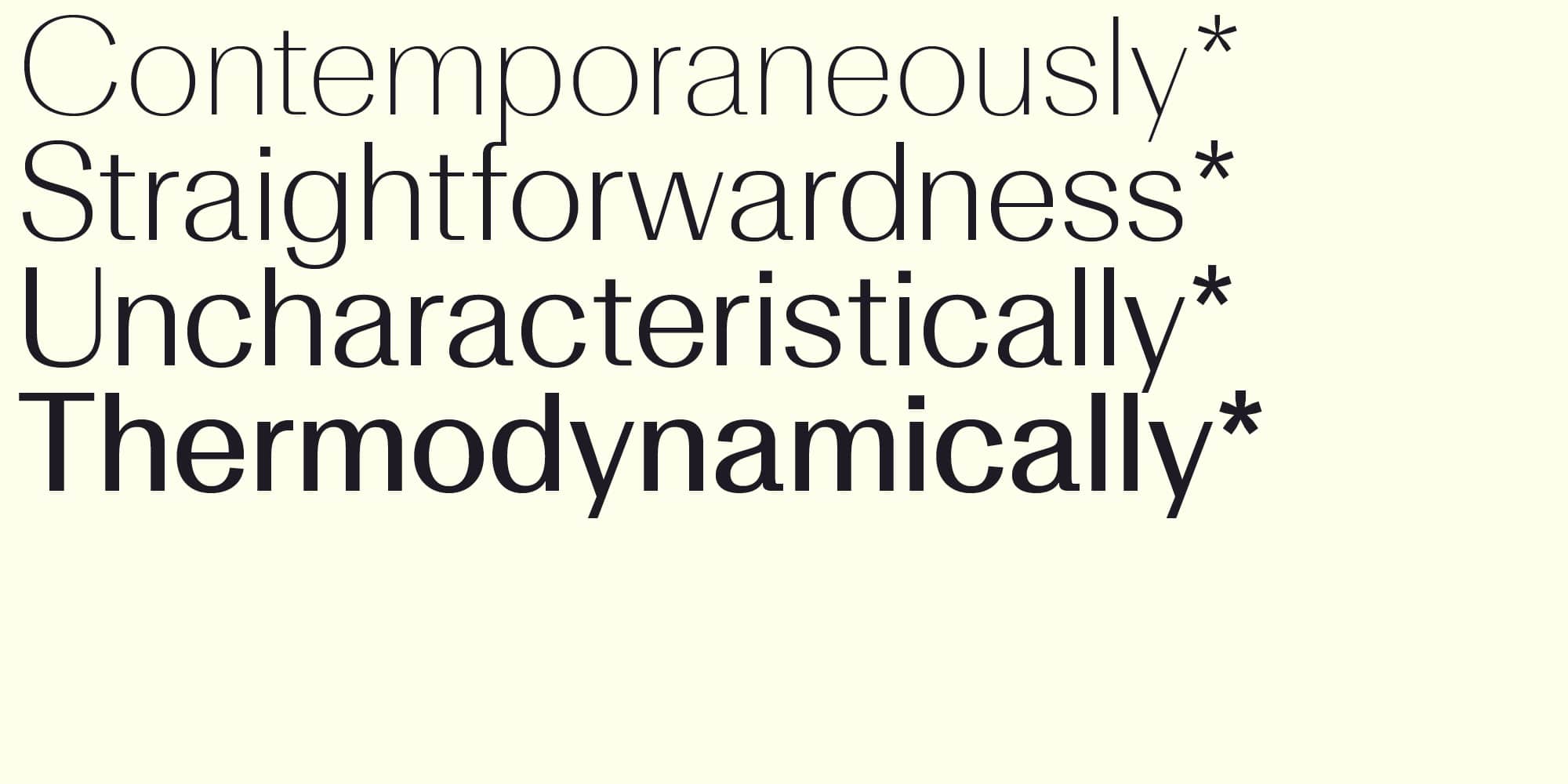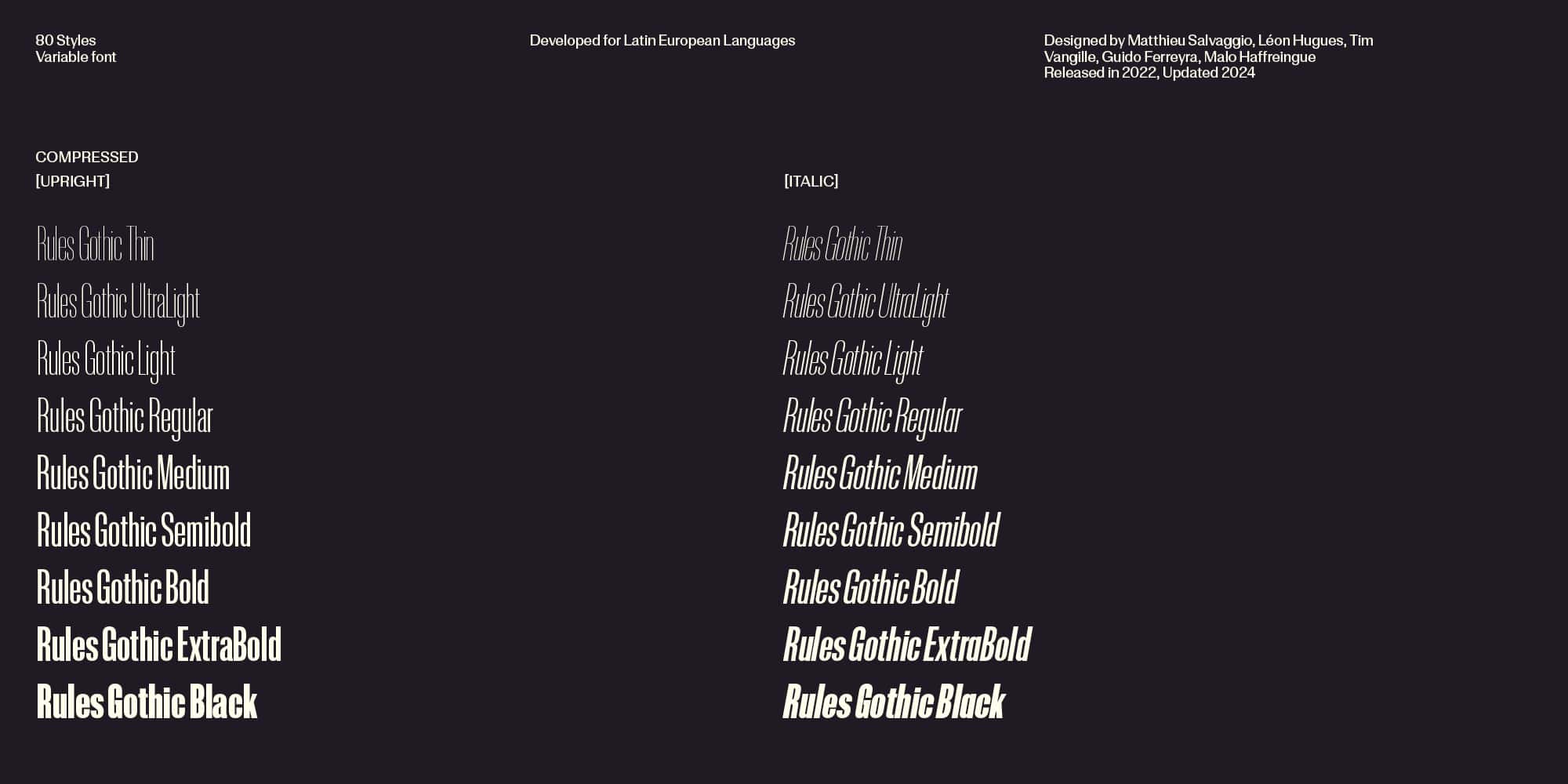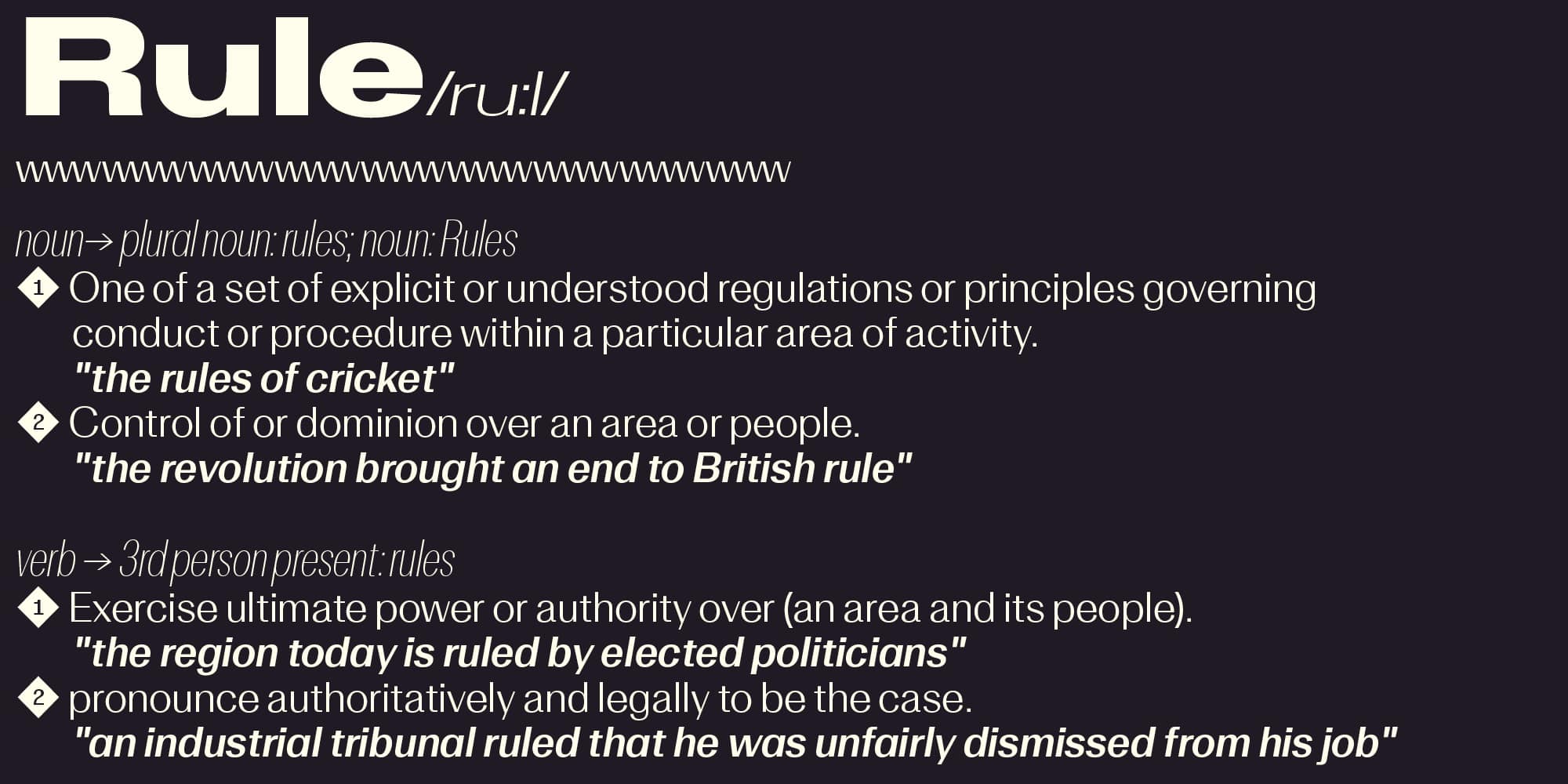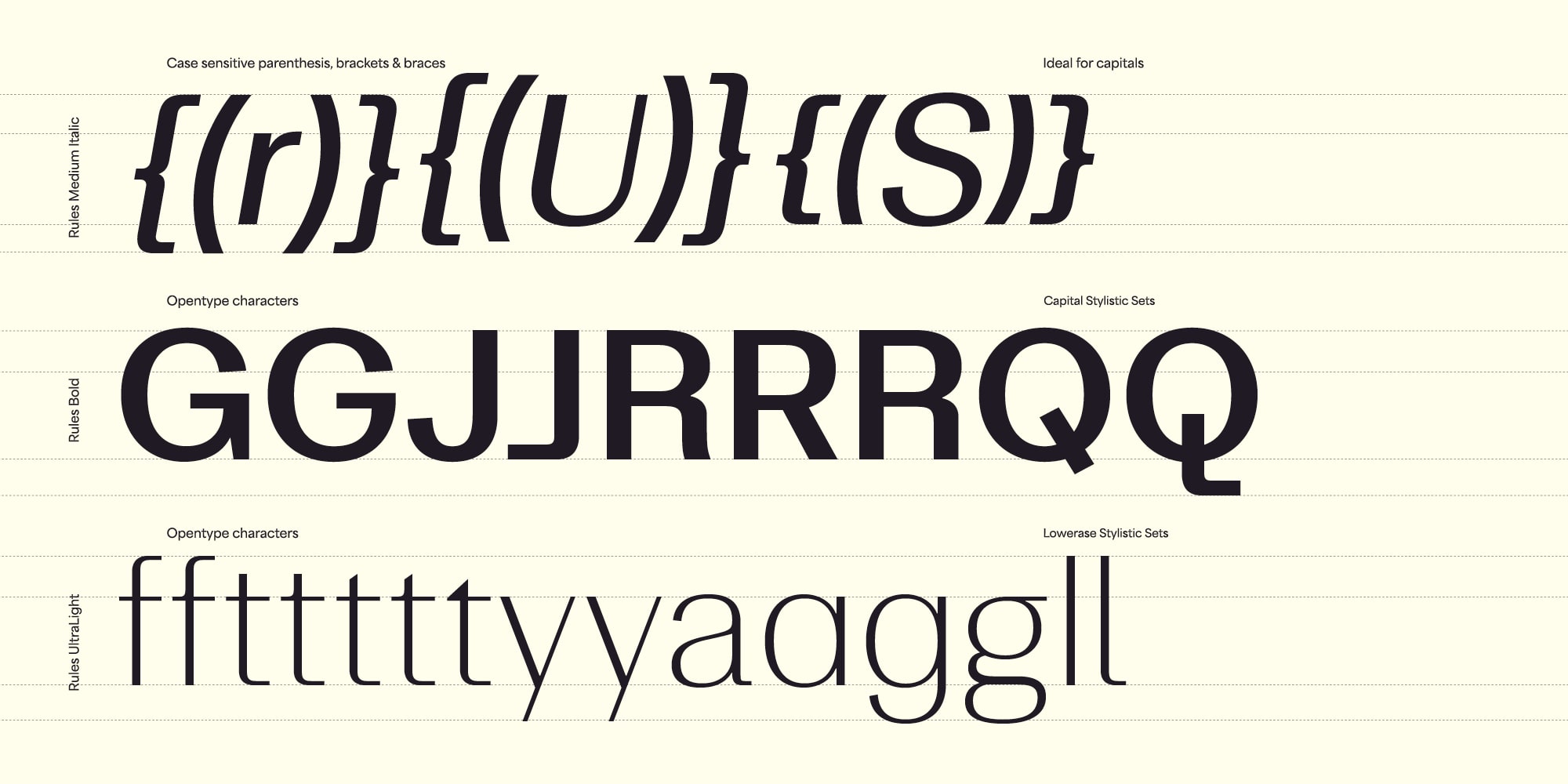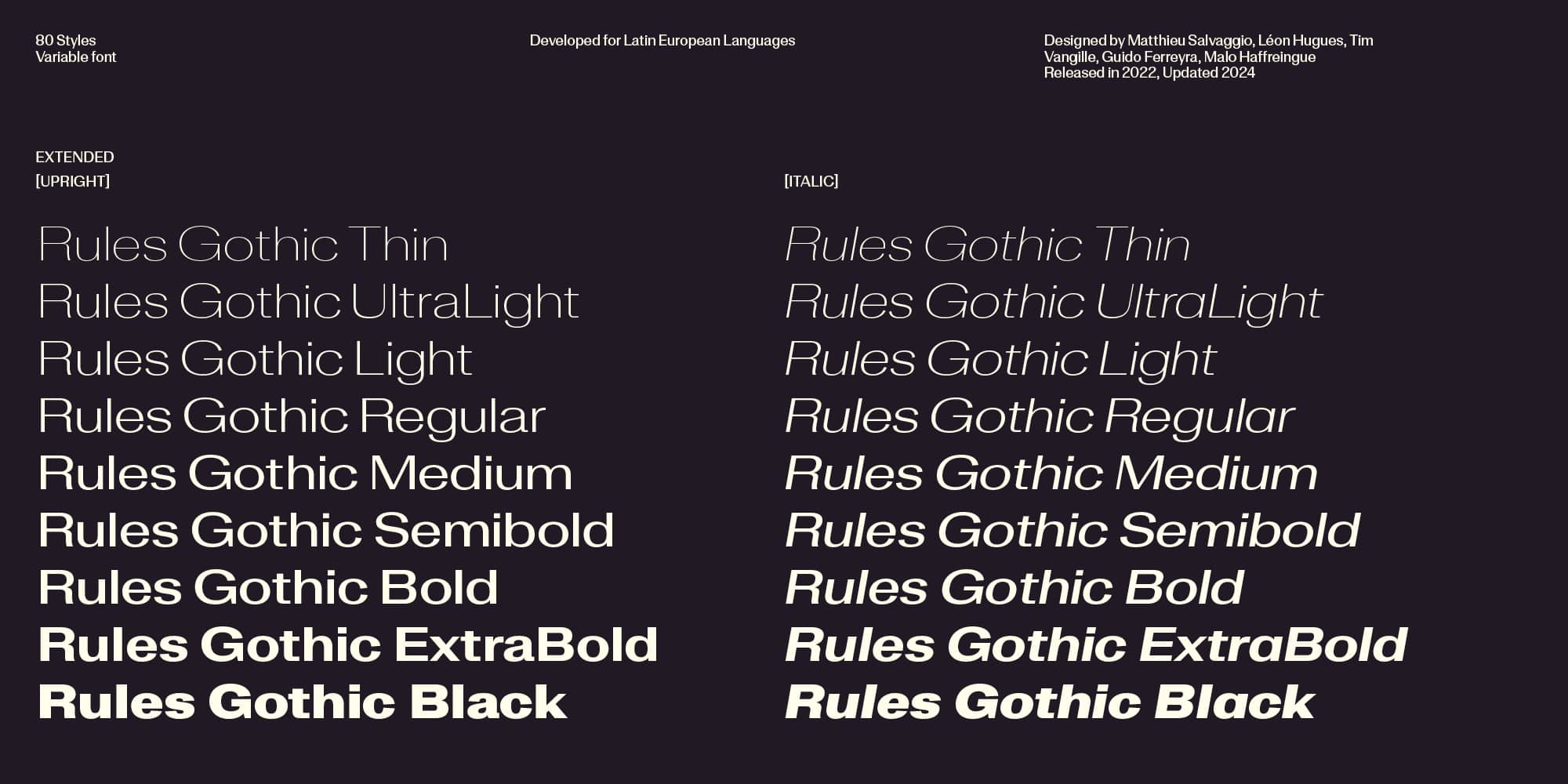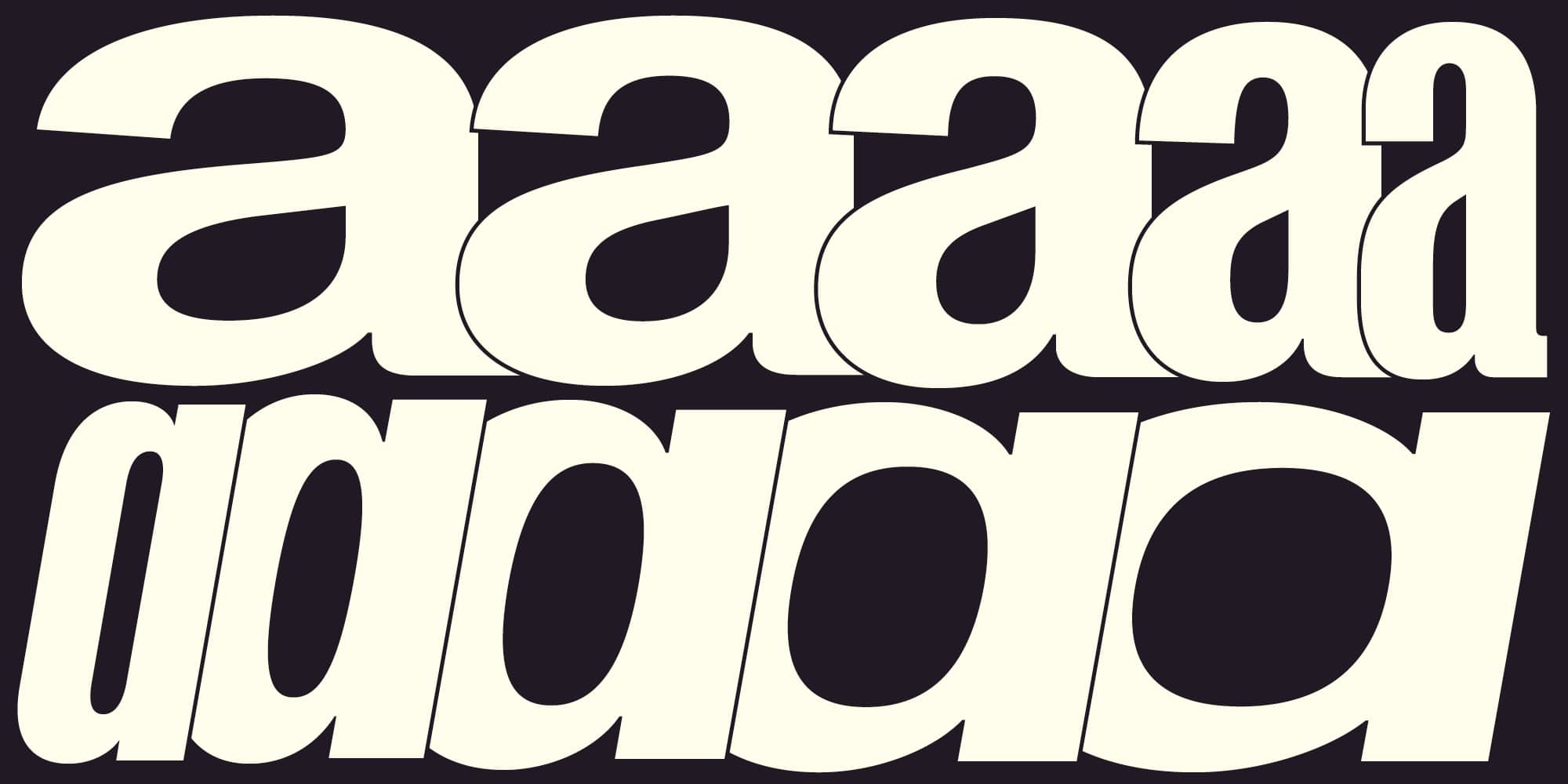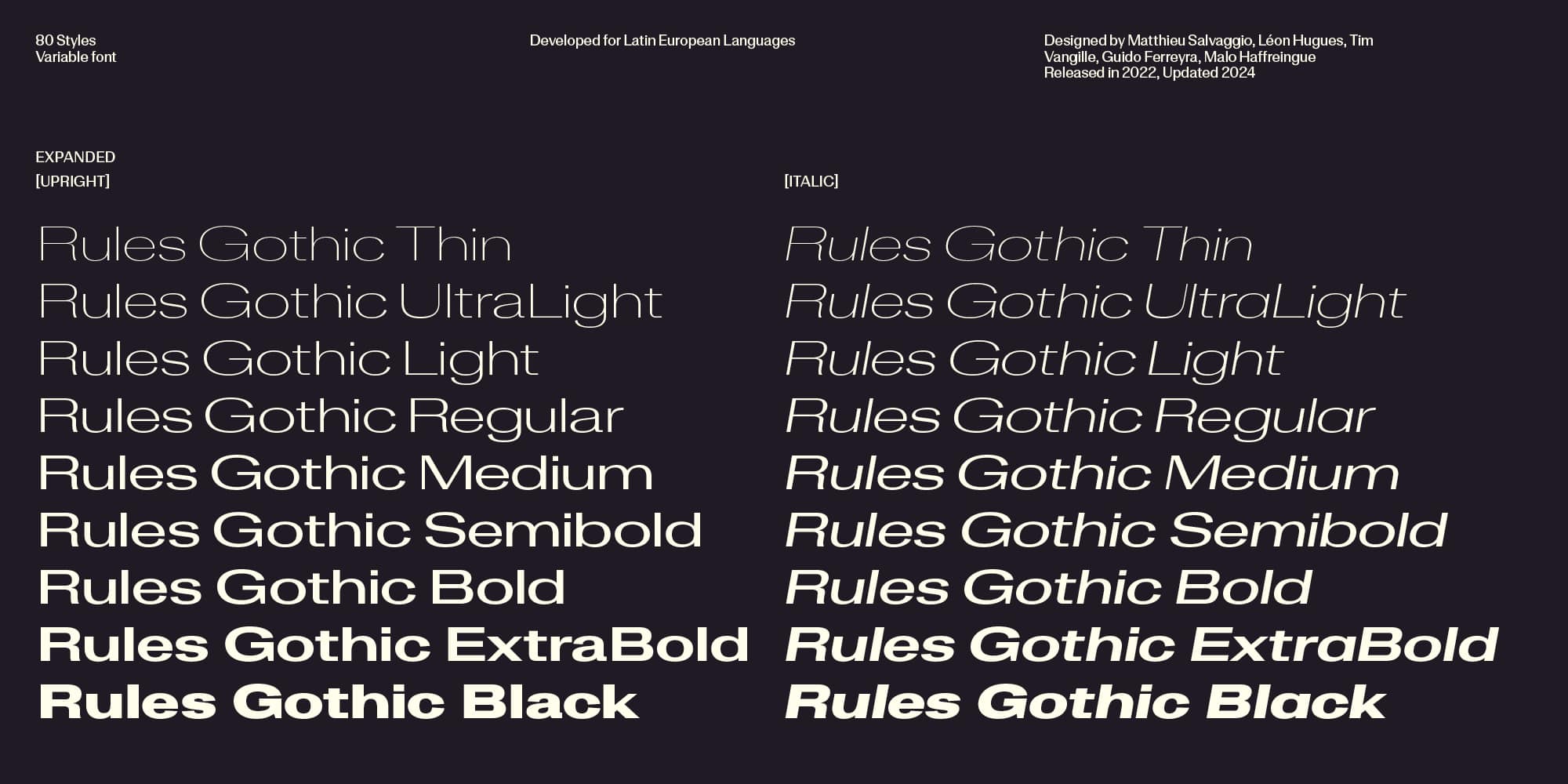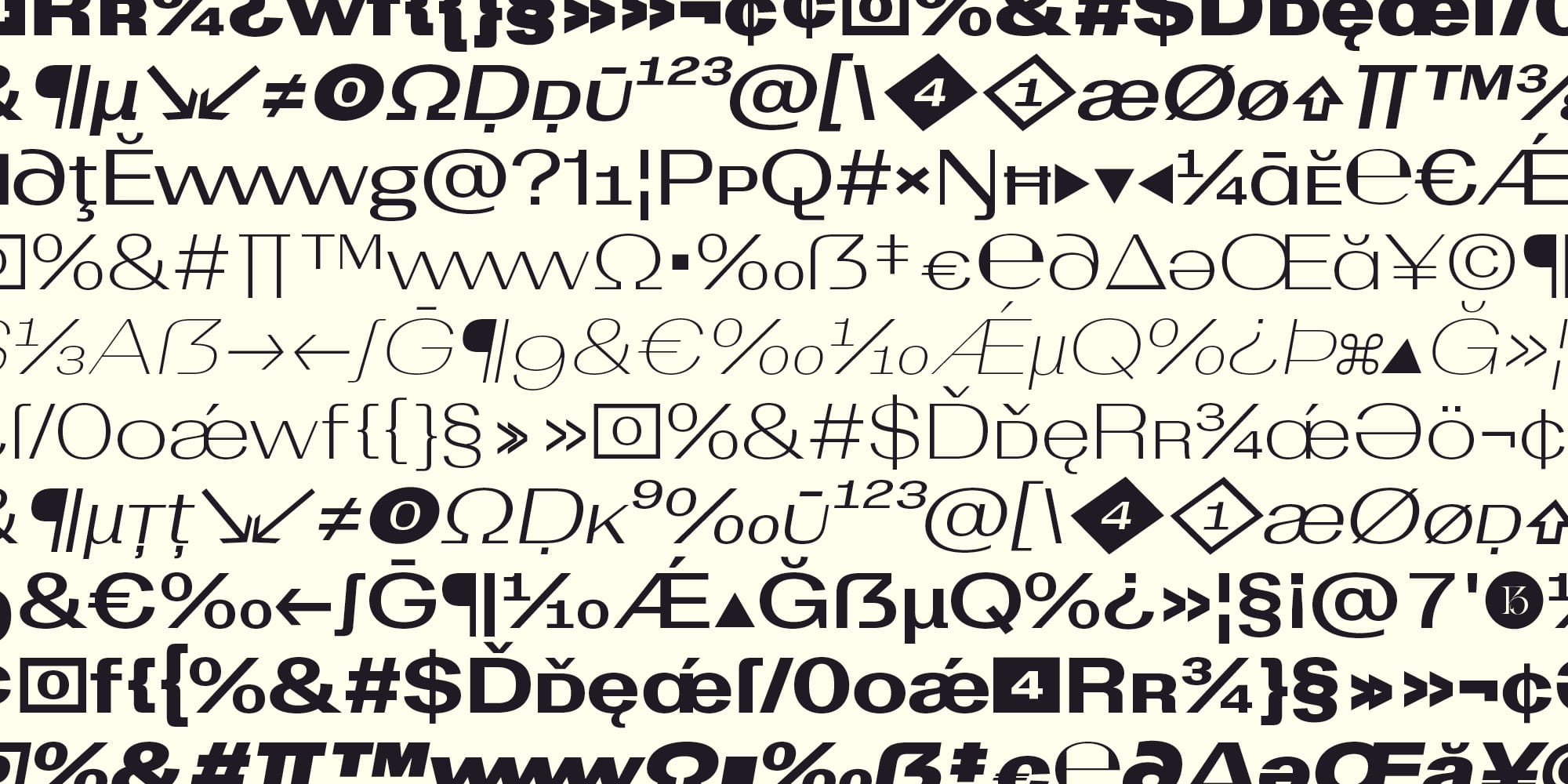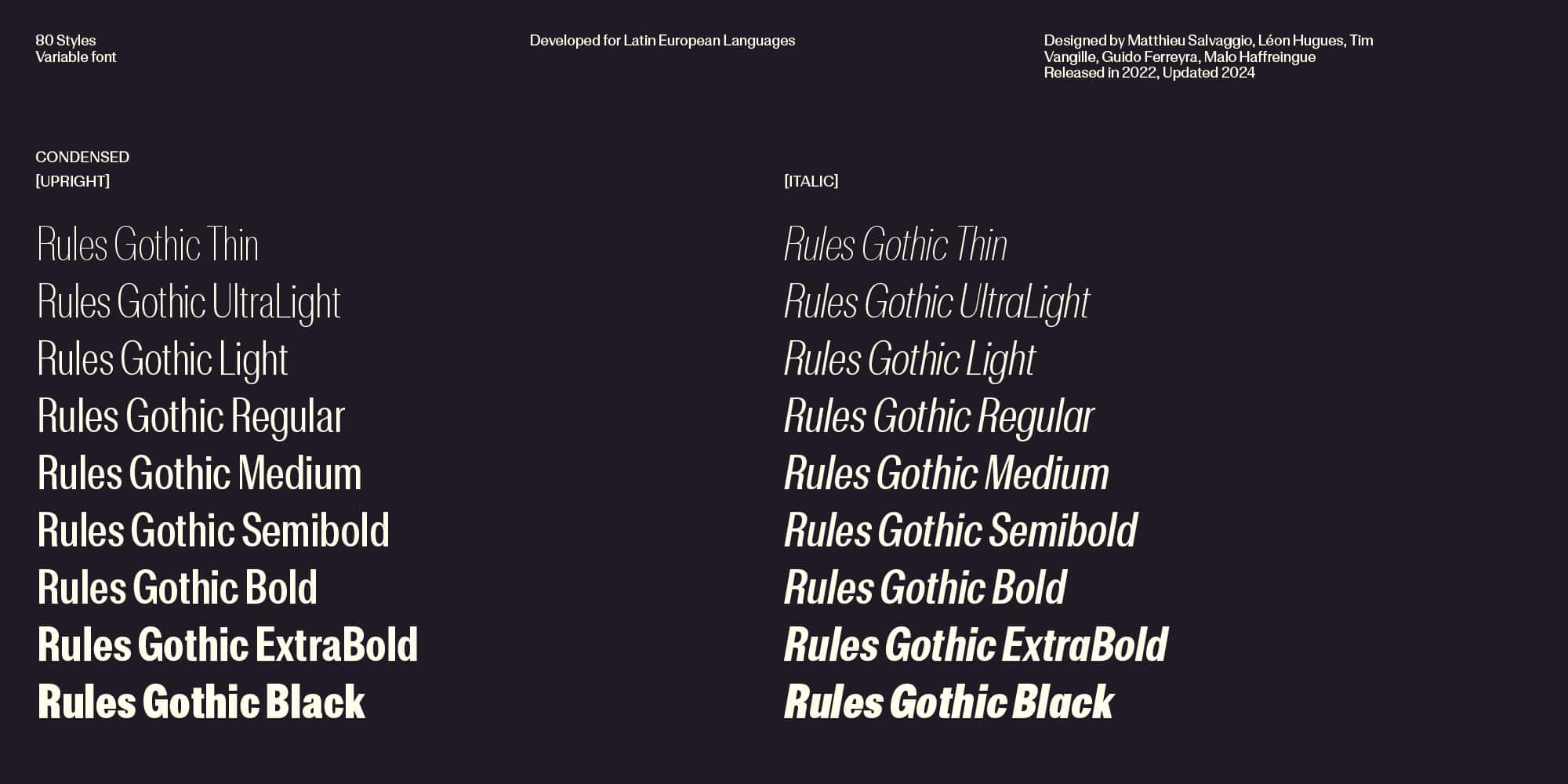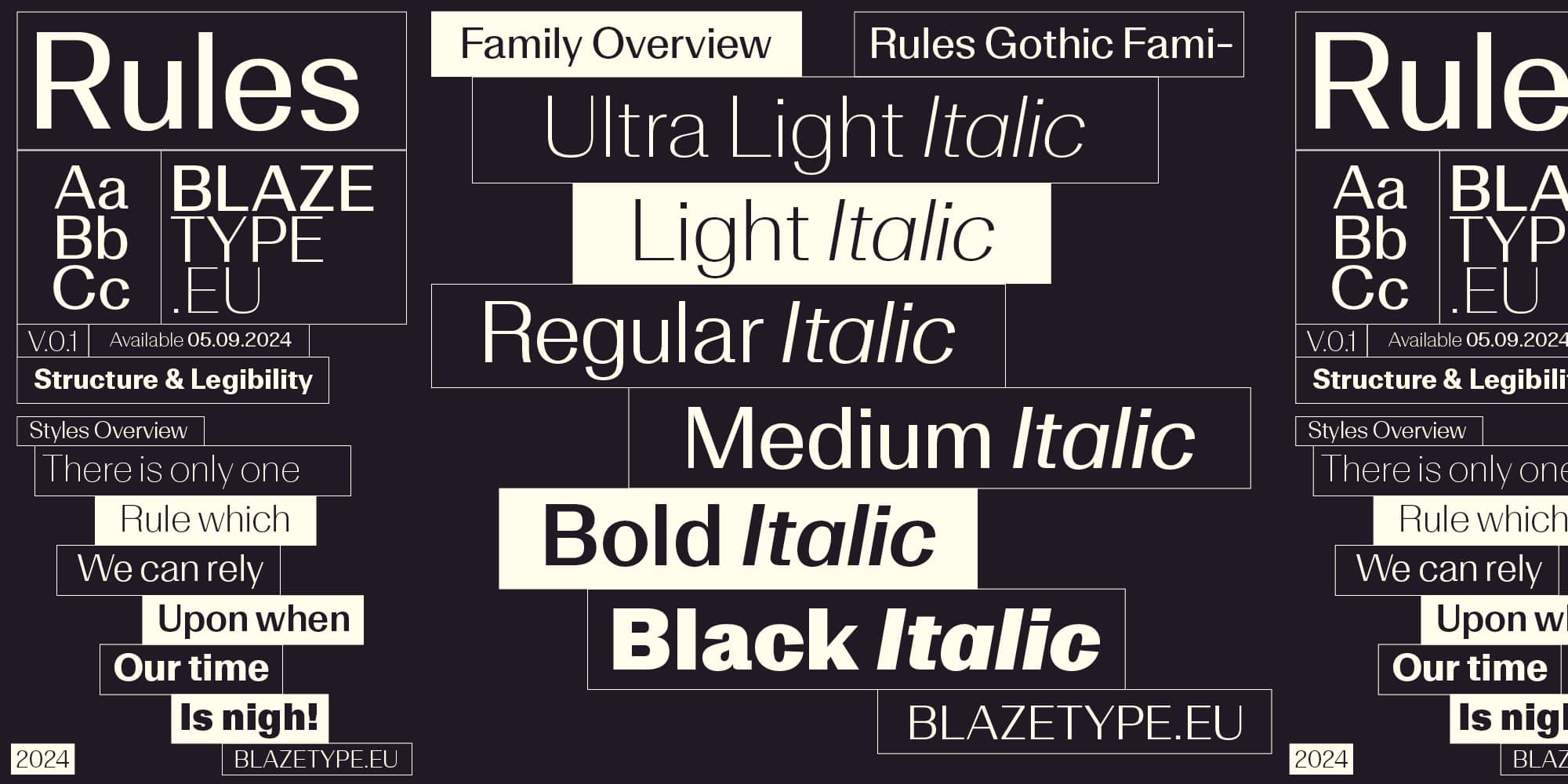
Rules Gothic
Rules Gothic is the Gothic renewal of the Rules font family. Thought has the "go to" typeface for any designers who love to use contrasted, gothic, humanist inspired sans fonts in their project.
Updated in 2024 after an extensive work on the overall structure of the font family to bring forward a wider range of possibilities in terms of axis, weights and width. Rules font is a contemporary interpretation of the neo grotesque font era, with an edge. Rooted in Swiss Modern type inspiration and built with a strong structure in the respect of type design tradition. Rules font features modern capitals (optically-matching widths). Next to no contrast in counter-forms. Closed edged terminals and an elegant twist bringing a colorful aspect to optical gray in text layouts. The whole font family is topped off with squared endings, giving the whole font family a great pace.
Rules font is a modern neo-grotesque font family with an edge.
This font family was especially thought for body texts in print, web & app uses and still performs greatly when used as a main headline or display fonts for posters as well as in signage system.
Matthieu Salvaggio , Léon Hugues , Guido Ferreyra , Malo Haffreingue